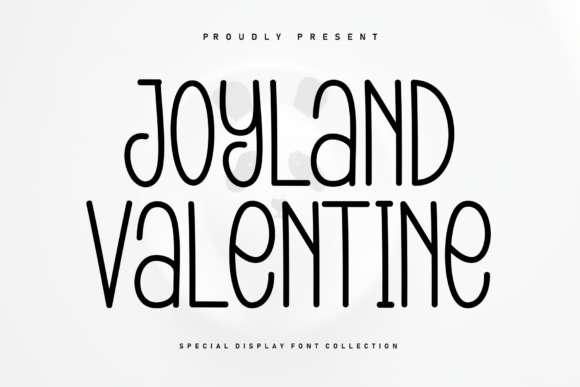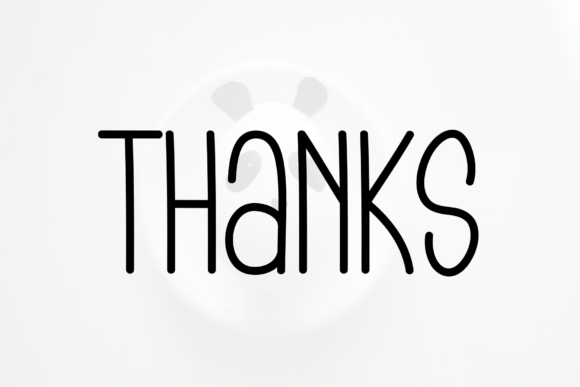
Have you ever been working on a design project and suddenly felt the need to add a little something extra? A dash of personality, a pinch of charm, and a whole lot of love? For many designers, this moment is when the magic happens, and the project starts to come alive. And for those looking to add that special something, we have just the thing – the Joyland Valentine Font.
This beautiful handwritten font is more than just a pretty face; it’s a way to infuse your designs with a sense of joy and warmth. Featuring characters that dance along the baseline, the Joyland Valentine Font is the perfect way to add a cozy accent to any project. Whether you’re working on a Valentine’s Day card, a wedding invitation, or simply a social media post, this font is sure to bring a smile to your audience’s face.
Key Features of Joyland Valentine Font
- Unique Characteristics: Joyland Valentine Font features a unique blend of modern and vintage elements, with elegant curves and subtle flourishes that evoke a sense of romance and nostalgia.
- Font Weight and Style: The font comes in multiple weights, including Light, Regular, Medium, Bold, and Extra Bold, allowing designers to choose the perfect style to suit their project’s tone and atmosphere.
Designer Review: Joyland Valentine Font
Overall, I’d say the Joyland Valentine Font has a certain charm to it ✨. The playful, handwritten feel is reminiscent of handwritten love letters, which is perfect for any Valentine’s Day-themed project. The font is highly customizable, allowing for a range of styles to suit your design needs.
The Joyland Valentine Font has a wide range of weights, from Light to Bold, giving you plenty of options to work with ✨. The font also supports a variety of languages, making it a great choice for international designs. Additionally, the font is fully editable in most design software, which is a big plus for designers who like to get creative.
- Playful, handwritten feel
- Wide range of weights
- Supports multiple languages
- Editable in most design software
- May not be suitable for formal or corporate designs ⚠️
- Some users may find the font too cursive or ornate ⚠️
- Not ideal for small text sizes ⚠️
Overall, the Joyland Valentine Font is a great choice for designers who want to add a touch of personality to their projects. While it may not be suitable for all design needs, it’s a great option for Valentine’s Day-themed projects or any design that requires a playful, handwritten feel.
Use the Joyland Valentine Font for romantic and whimsical designs, such as wedding invitations, valentines, and birthday cards.
Pair the font with pastel colors and floral patterns for a cohesive look.
Experiment with different font sizes and styles to add emphasis and visual interest.
The Joyland Valentine Font is perfect for:
Valentine’s Day cards and gifts
Birthday cards and party invitations
Any design that requires a romantic and whimsical touch
Alternatives to Joyland Valentine Font
Great Vibes is a modern, cursive font that conveys a sense of playfulness and sophistication. It is ideal for use in wedding invitations, greeting cards, and other romantic designs. Great Vibes is similar to Joyland Valentine Font in its flowing, handwritten style, but has a more refined and elegant feel.